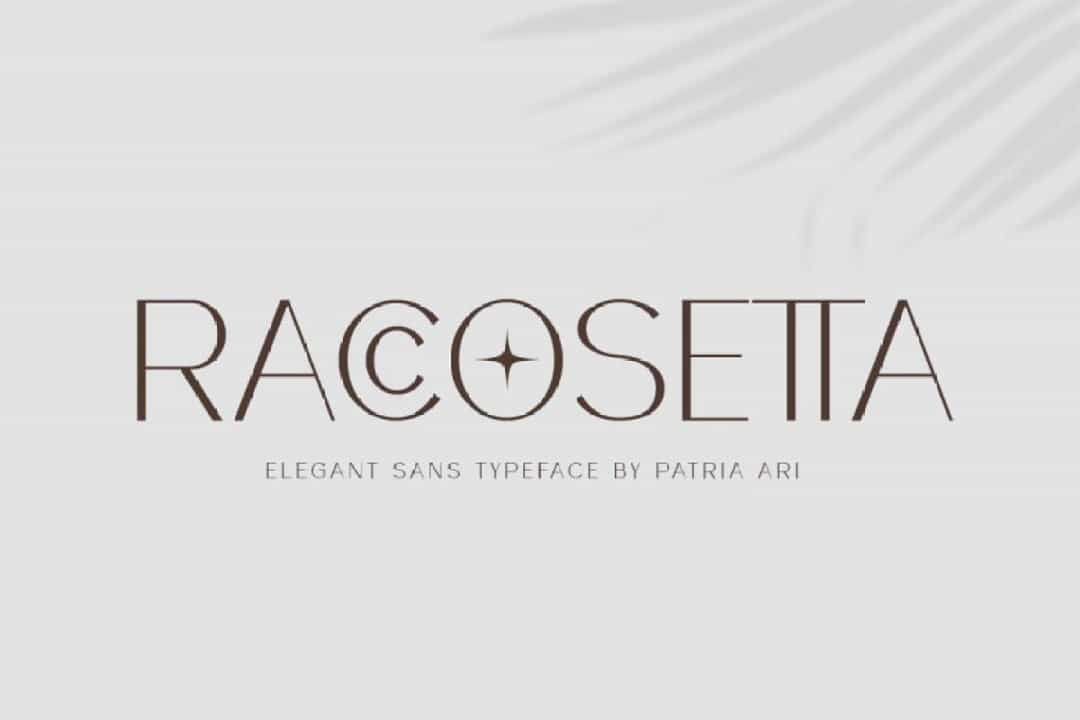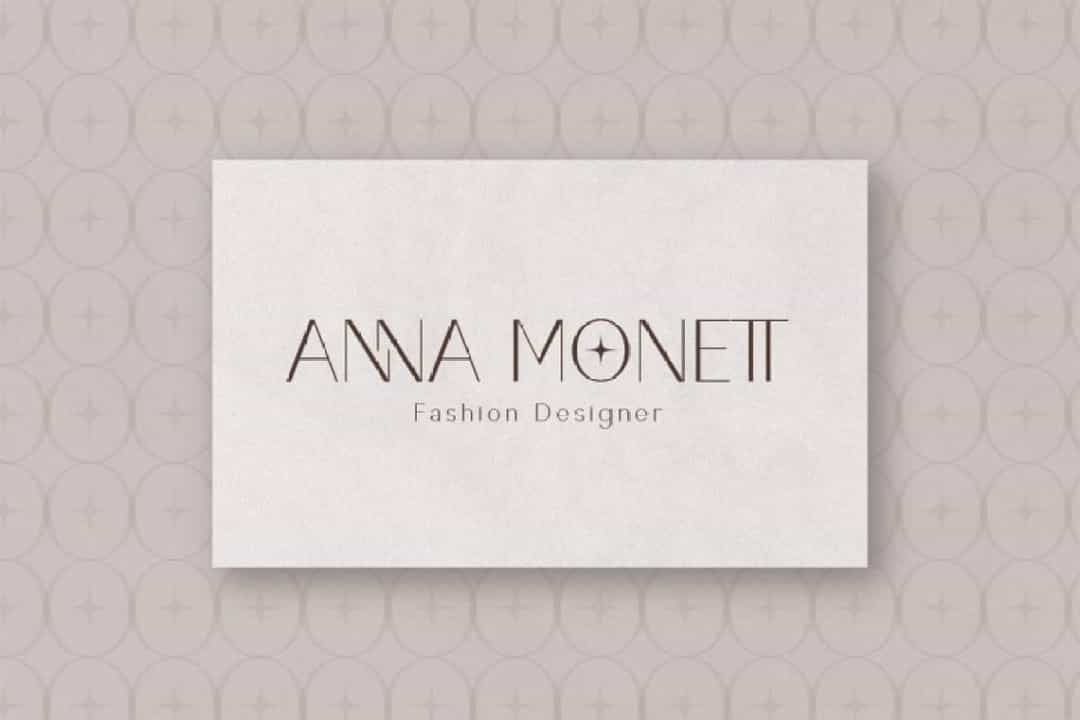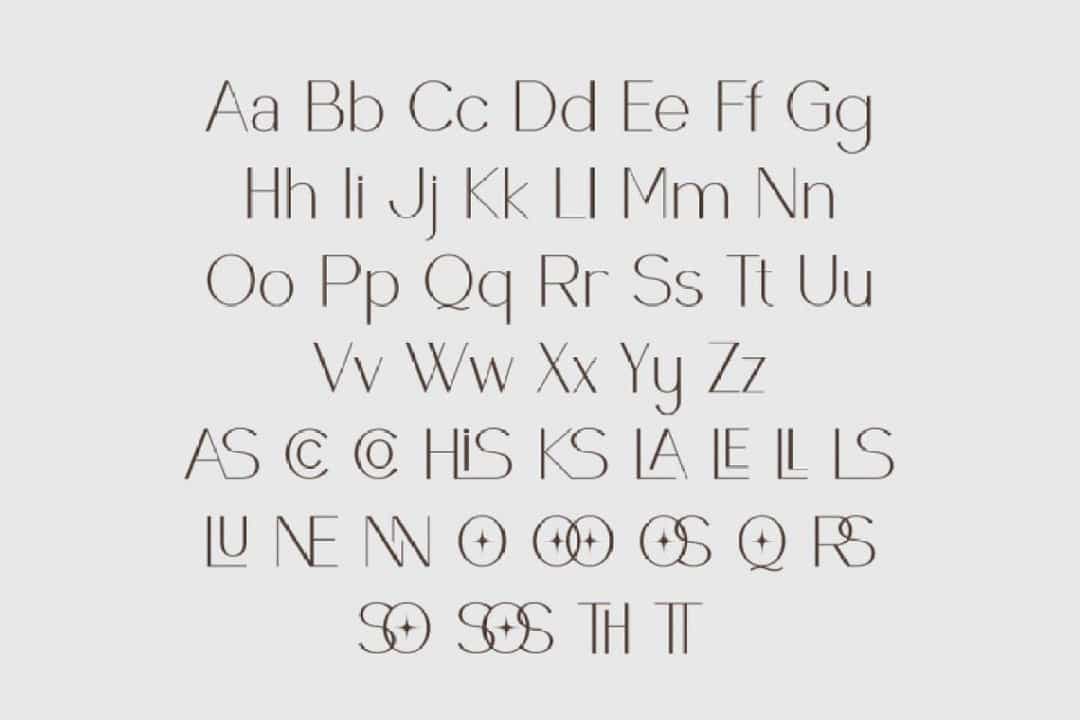
Discover Raccosetta Typeface, part of the Sans Serif Display Basic Personal collection—a versatile and unique font perfect for adding a personal touch to your projects. Download it for free and enjoy crafting designs with style, from invitations to social media posts. This font is available exclusively for personal use, giving you the freedom to create without limits. Unlock your creativity with Raccosetta Typeface today!
Raccosetta is a high-class font with a contemporary look that has traditional appearance and can be used for titles, magazine covers, wedding invitations, logos, PowerPoint backgrounds and other purposes.